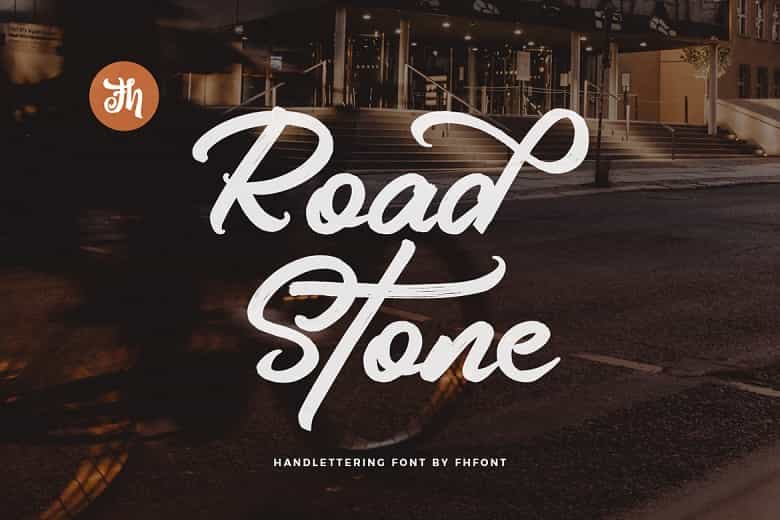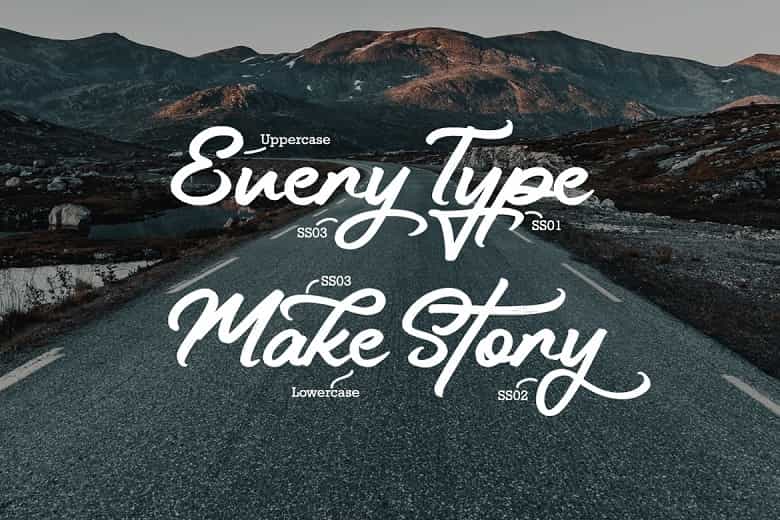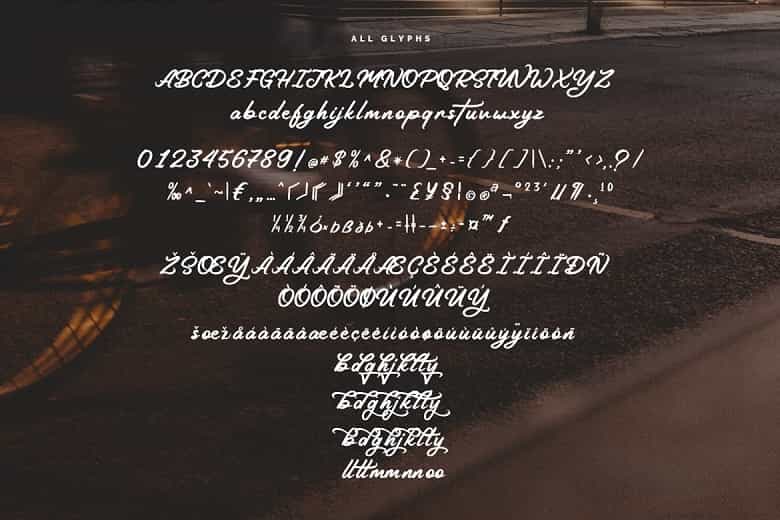
Road Stone is a handlettering brush script font. The letters in this font are unique and equally spaced, which makes this font a work of art. You will fall in love with its incredibly versatile style and use it to create spectacular designs! It is perfect for wedding design, event, t-shirt, logo, badges, stickers, and great work, etc.